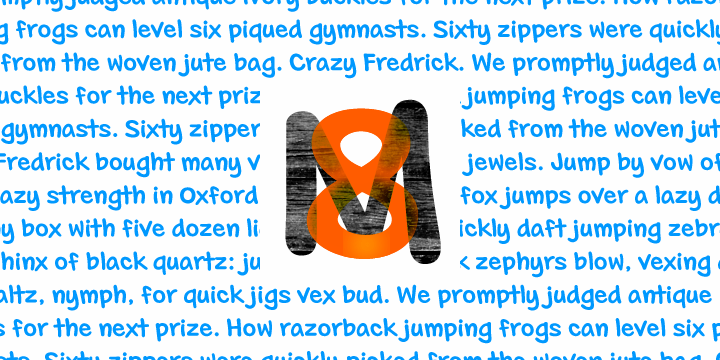
First seen on MyFonts: June 1st, 2009 MarkupMarkup is a fresh, clean, handwriting font suitable for use in many applications. At large sizes, the letters showcase their smooth, natural curves. At text sizes, its sharp rhythm makes for a casual personality while still remaining legible. Not quite what you’re looking for? Try looking at more fonts like this. |